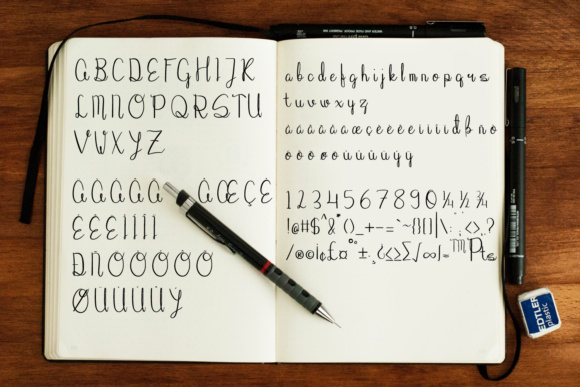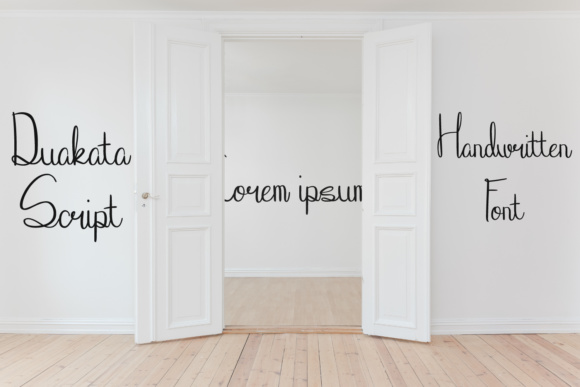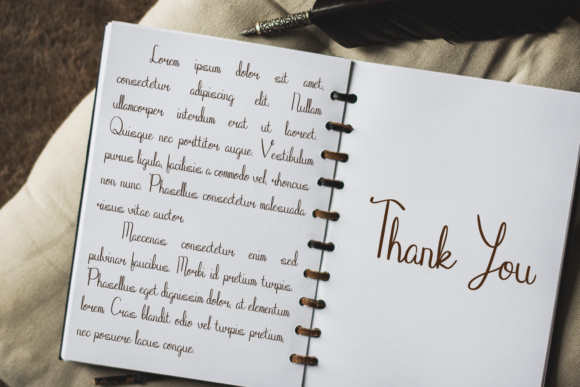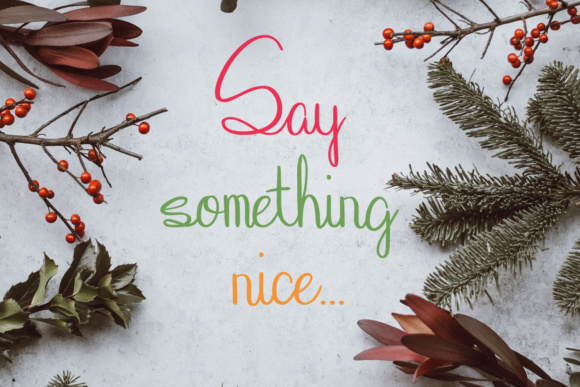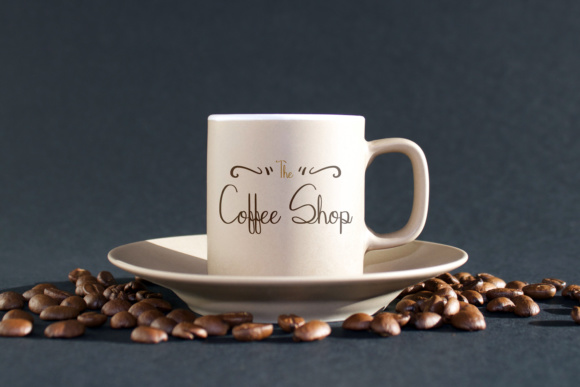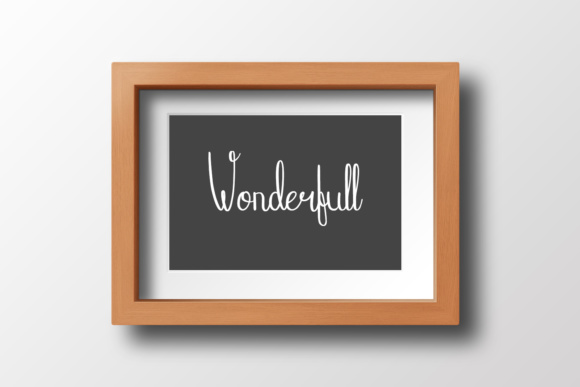
The Duakata Font: A Beautifully Handlettered Script for Your Creative Projects
Have you ever been in the middle of a design project, and suddenly, you’re stuck on finding the perfect font? I recall a recent experience where I was working on a branding project for a boutique client, and I just couldn’t find a font that captured the essence of her business – elegant, yet playful, and fun. That’s when I stumbled upon the Duakata font, and it instantly became my go-to choice. In this article, I’ll share with you why I love Duakata, its features, and how you can make the most of it in your creative projects.
An Honest Review of Duakata Font
What I Love About Duakata ✨
- ✅ Natural and Free-Flowing: Duakata has a beautifully handlettered script that gives your designs a personal touch.
- ✅ Pairs Well with San Serif Fonts: It complements sans serif fonts perfectly, creating a nice contrast in your designs.
- ✅ Casual yet Girly Appeal: Duakata adds a touch of femininity to your work without looking too over-the-top.
- ✅ Versatile: This font is suitable for a wide range of projects, from branding and packaging to invitations and social media graphics.
- ⚠️ Limited Use in Formal Contexts: Due to its casual nature, Duakata might not be the best choice for formal or corporate projects.
- ⚠️ Requires Attention to Legibility: When using Duakata at smaller sizes, make sure to check legibility, especially for longer texts.
The Story Behind Duakata
Duakata was designed with the intention of creating a beautiful, handlettered script that captures the essence of a personal, handwritten note. The designer aimed to create a font that’s both elegant and approachable, making it perfect for a wide range of creative projects.
Q: What type of projects is Duakata best suited for?
A: Duakata is versatile and can be used in various projects, including branding, packaging, invitations, social media graphics, and more.
Q: Does Duakata support OpenType features?
A: Yes, Duakata supports OpenType features, including stylistic alternates and glyphs. You can access these features in compatible software, like Adobe Creative Cloud.
Q: Can I use Duakata in both digital and print projects?
A: Absolutely! Duakata is designed to work well in both digital and print projects. Just ensure to adjust the font size and style according to your specific needs.